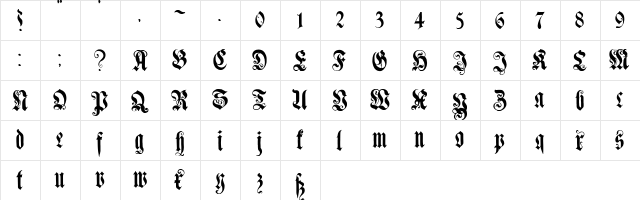
Genzsch Et Heyse Alternate Regular
| Designer | PJL |
Design Context for Genzsch Et Heyse Alternate Typeface
Genzsch Et Heyse Alternate takes a measured approach to typography — its balanced proportions and neutral character make it a reliable workhorse for both digital and print work.